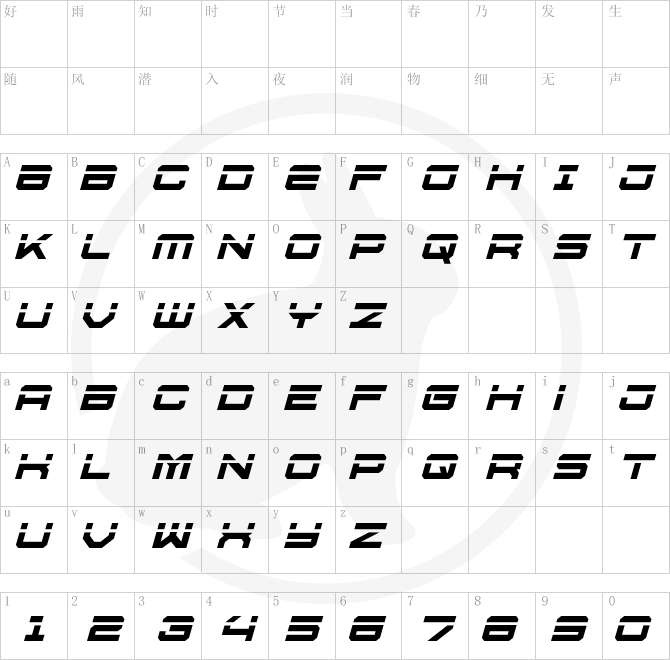
- Font Name:U.S.S. Dallas Laser Italic
U_S_S_Dallas-Laser-Italic.ttf is a very beautiful artistic font, U_S_S_Dallas-Laser-Italic.ttf is widely used in the design and printing of various books and pictures,U_S_S_Dallas-Laser-Italic.ttf has a strong visual impact,U_S_S_Dallas-Laser-Italic.ttf is a commonly used font in newspapers, magazines and books, and is used in posters, e-commerce Poster design, store design, logo design, font design and other fields.U_S_S_Dallas-Laser-Italic.